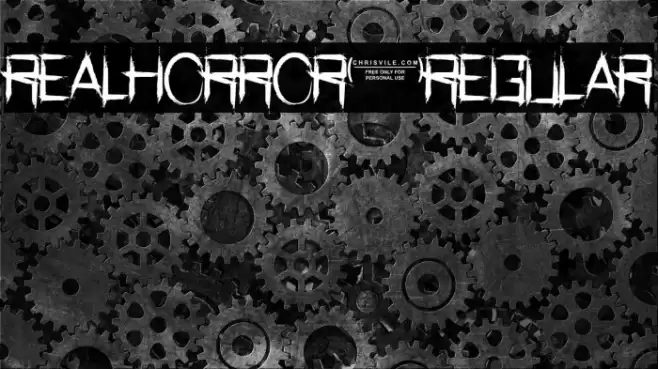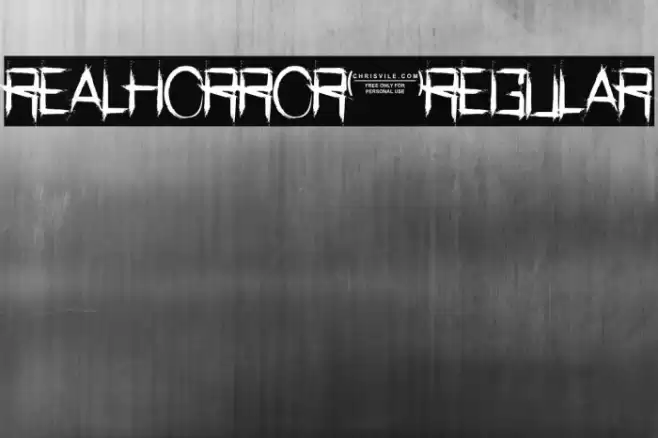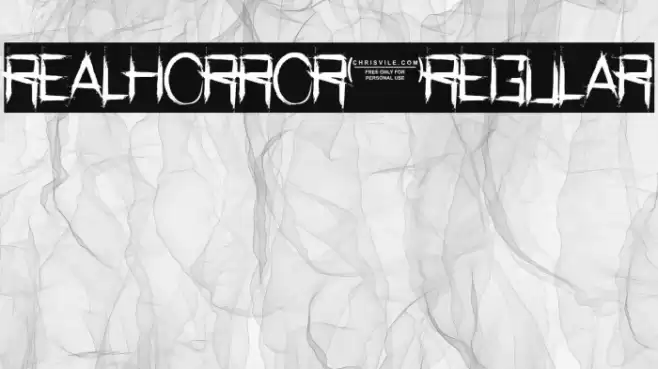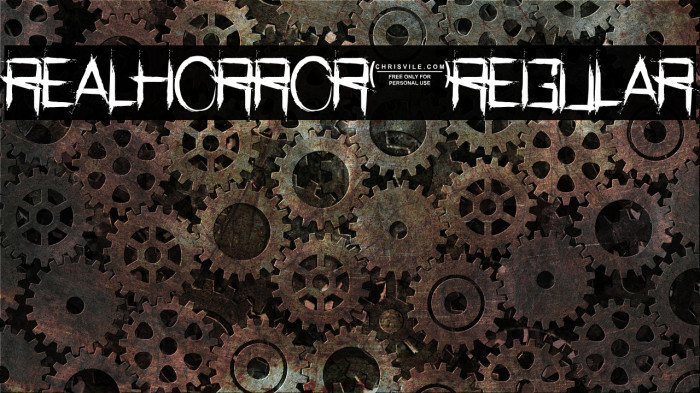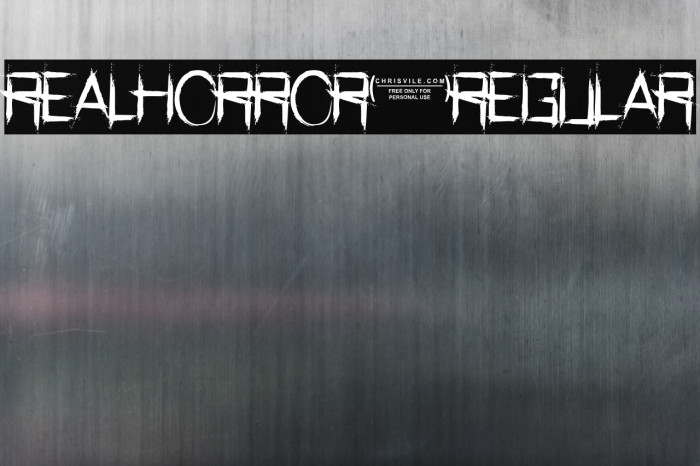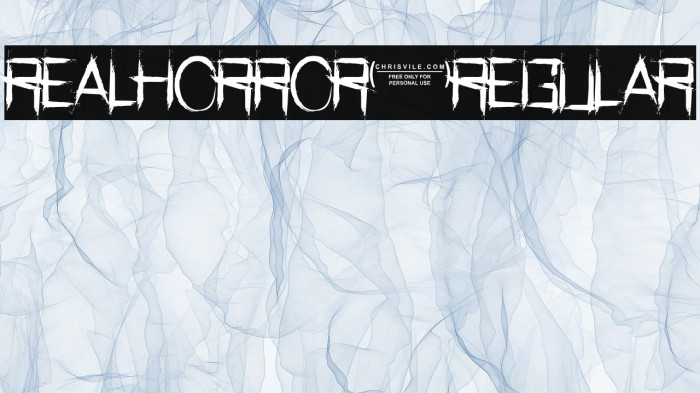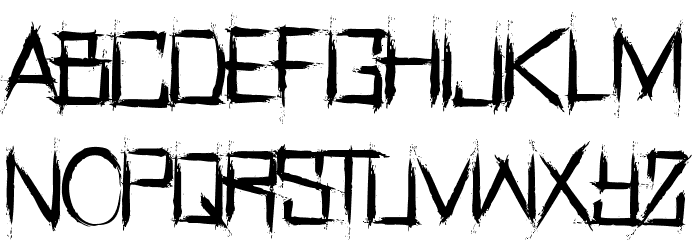
RealHorror-Regular Font
RealHorror-Regular Description
This font features a highly distressed and jagged appearance, reminiscent of horror-themed aesthetics. The characters are bold and angular, with irregular edges that give them a chaotic and unsettling feel. The strokes are uneven, with some parts appearing thicker and others thinner, adding to the eerie vibe. This design is perfect for creating a sense of tension and fear, making it ideal for horror movie posters, Halloween-themed projects, or any design that requires a touch of the macabre. The uppercase and lowercase letters maintain a consistent style, ensuring a cohesive look across different text elements.
A jagged, distressed font ideal for horror themes from Uncategorized fonts.
- Proposed Projects: Horror movie posters, Halloween invitations, spooky event flyers, haunted house signage.